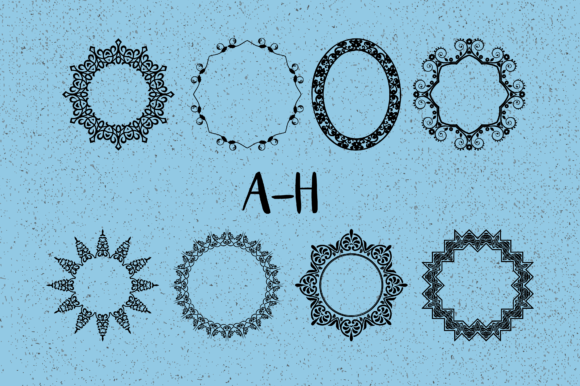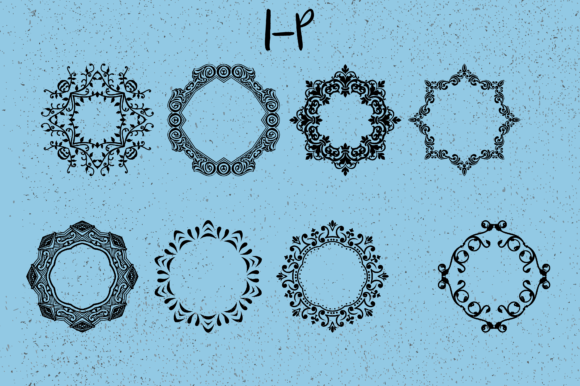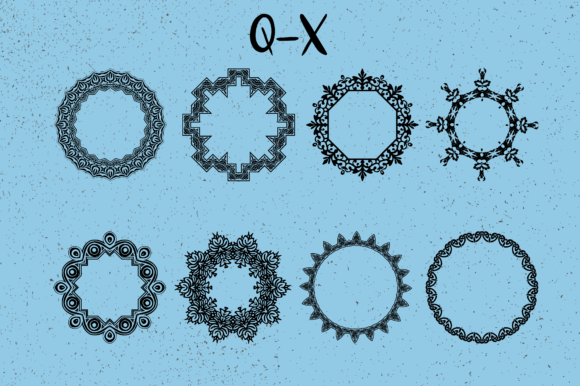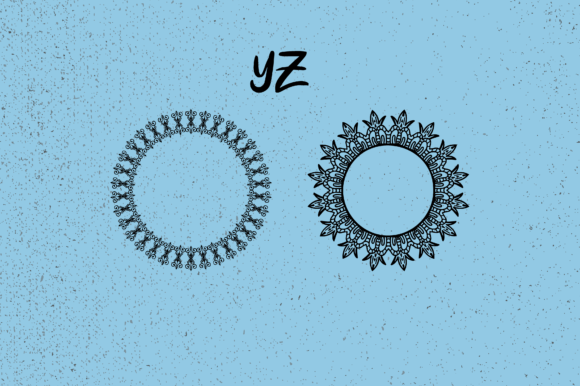
Frames Creator 3.0 is a remarkable dingbats typeface that offers a vast array of options for generating unique geometric and floral frames or borders. With 62 different designs available, this font is a valuable asset for various creative projects, including logos, social media posts, packaging, and more.
The font’s distinct style and attention to detail make it a versatile tool for enhancing your designs. The geometric frames provide a modern and sleek touch, perfect for contemporary branding or minimalist aesthetics. On the other hand, the floral frames offer an elegant and organic feel, adding a touch of nature and beauty to your creations.
Whether you’re designing a logo for a brand, creating eye-catching social media graphics, or packaging products with an extra touch of sophistication, Frames Creator 3.0 has you covered. The diverse range of frames and borders allows you to find the perfect fit for your specific project.
To use Frames Creator 3.0, simply type the corresponding letter or number associated with the desired frame. Each glyph represents a unique design, ranging from intricate patterns to bold and clean lines. You can easily mix and match frames, layer them, or combine them with other elements to create captivating compositions.
The versatility of Frames Creator 3.0 extends beyond its usage in digital designs. If you have access to a vinyl cutter or a cutting machine, you can utilize this font to create custom stickers, labels, or even intricate paper cutouts. The precision and level of detail in the frames make them suitable for various crafting applications.
In summary, Frames Creator 3.0 is a unique and highly detailed dingbats typeface that offers 62 distinct geometric and floral frames or borders. Whether you’re working on logos, social media posts, packaging, or other design projects, this font provides a wide range of options to elevate your creations. With its versatility and intricate designs, Frames Creator 3.0 is a valuable tool for any designer or creative enthusiast.